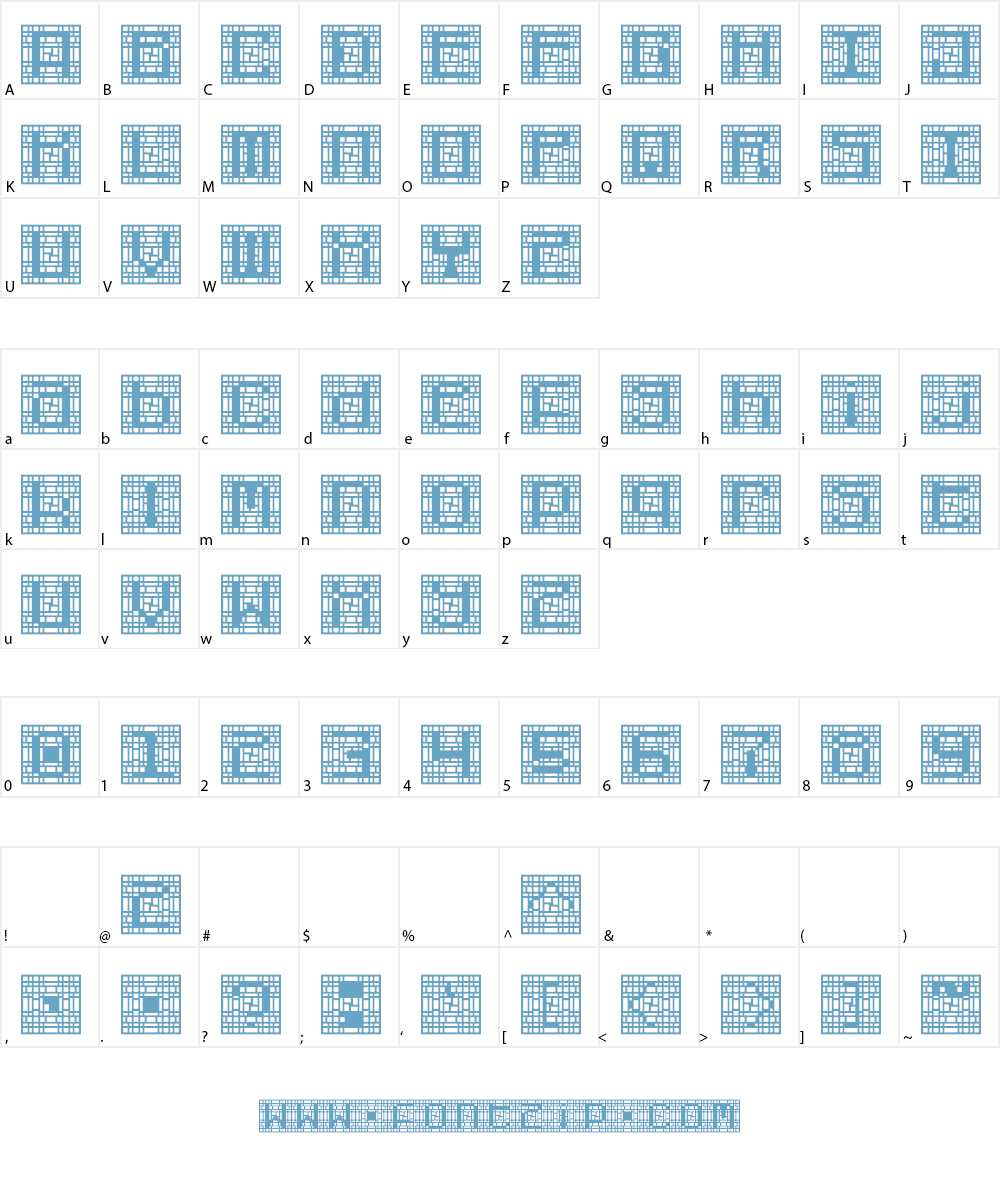
A family of six experimental cyberpunk robot mosaic things. Most of them have an original size of either 21pt or 42pt. A few of them are also pixel designs and need multiples of these sizes for pixel perfection.